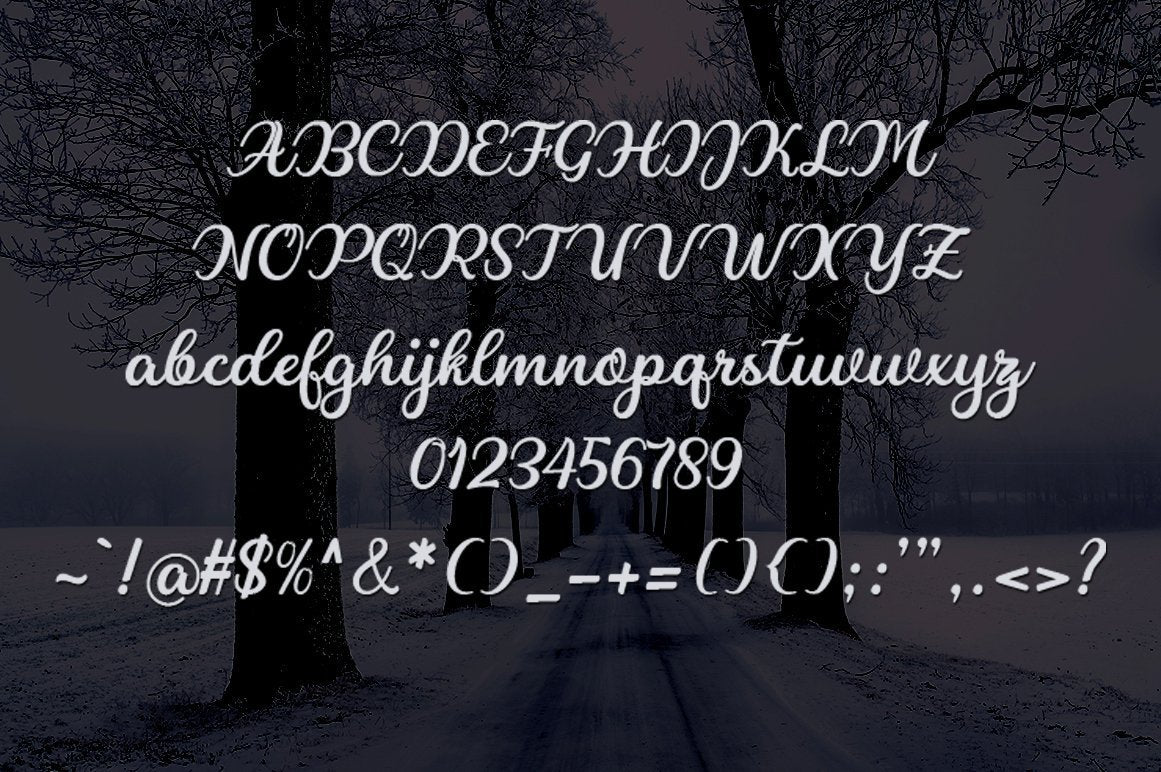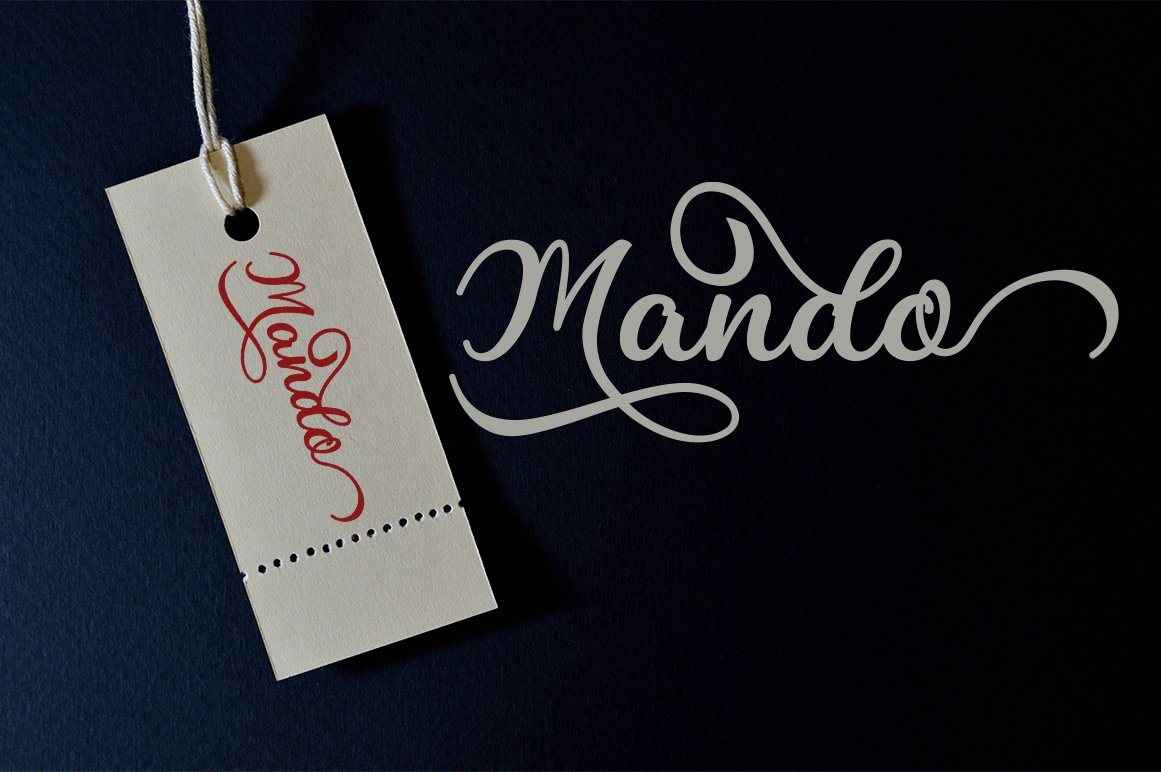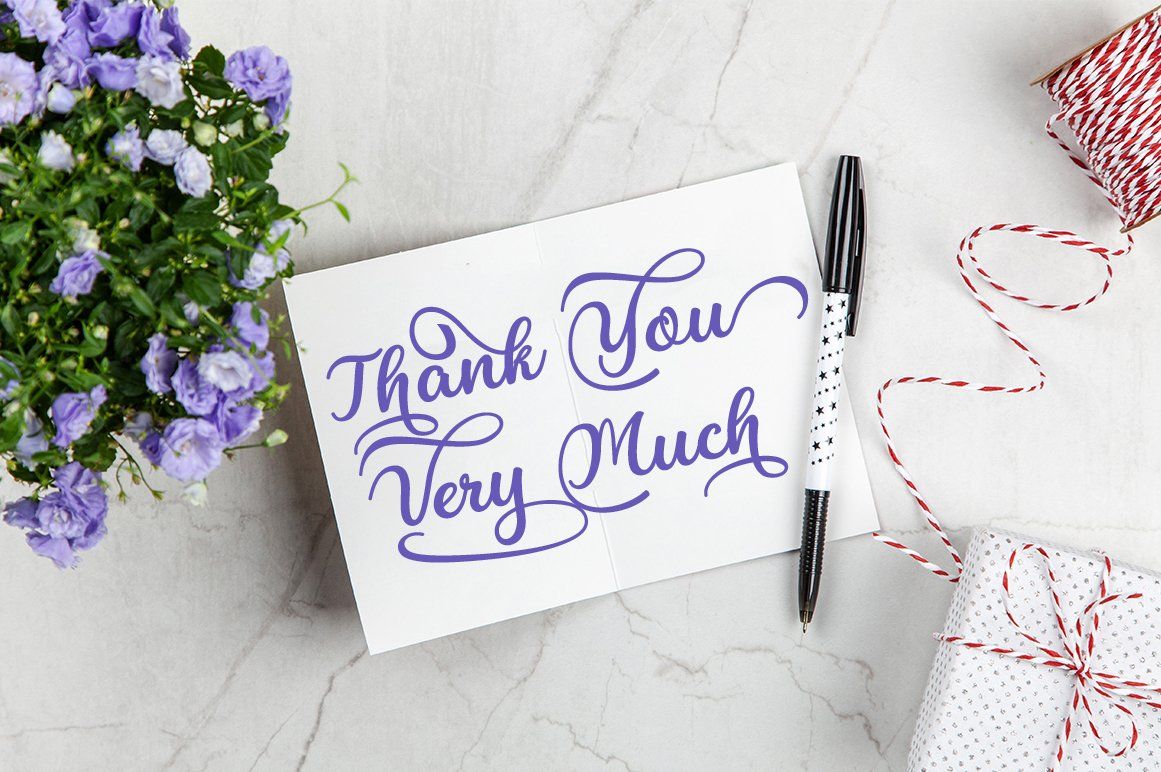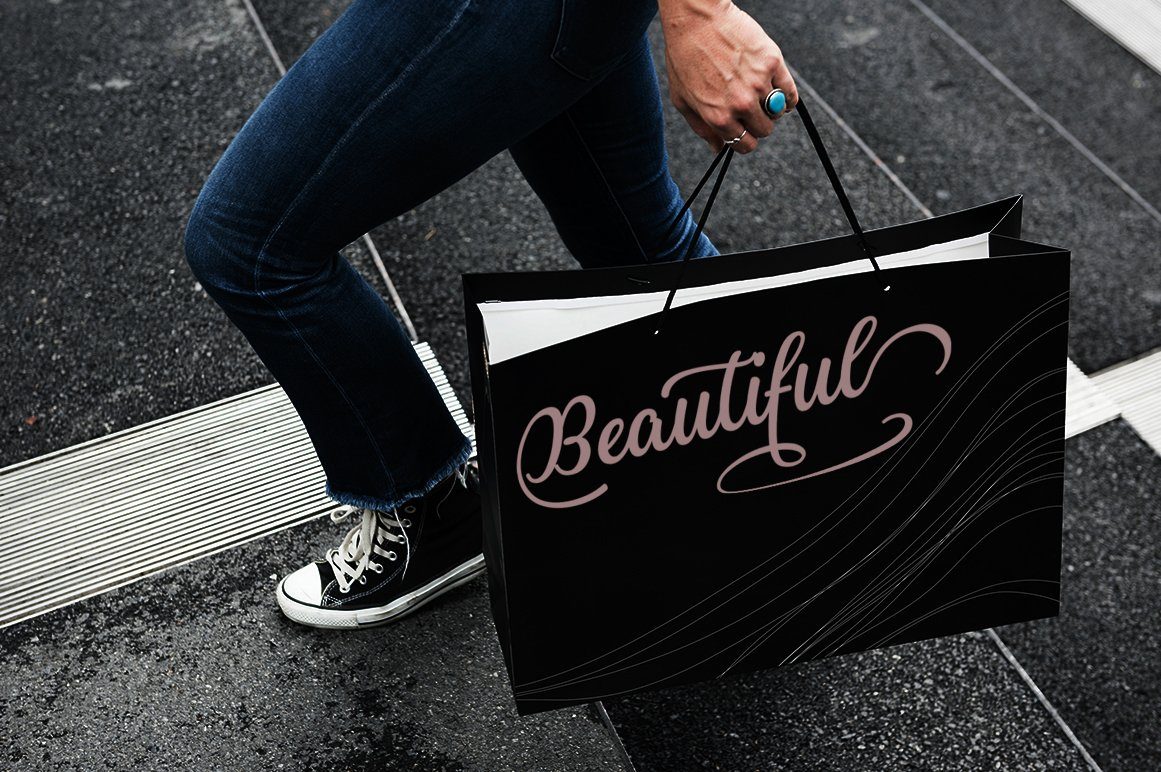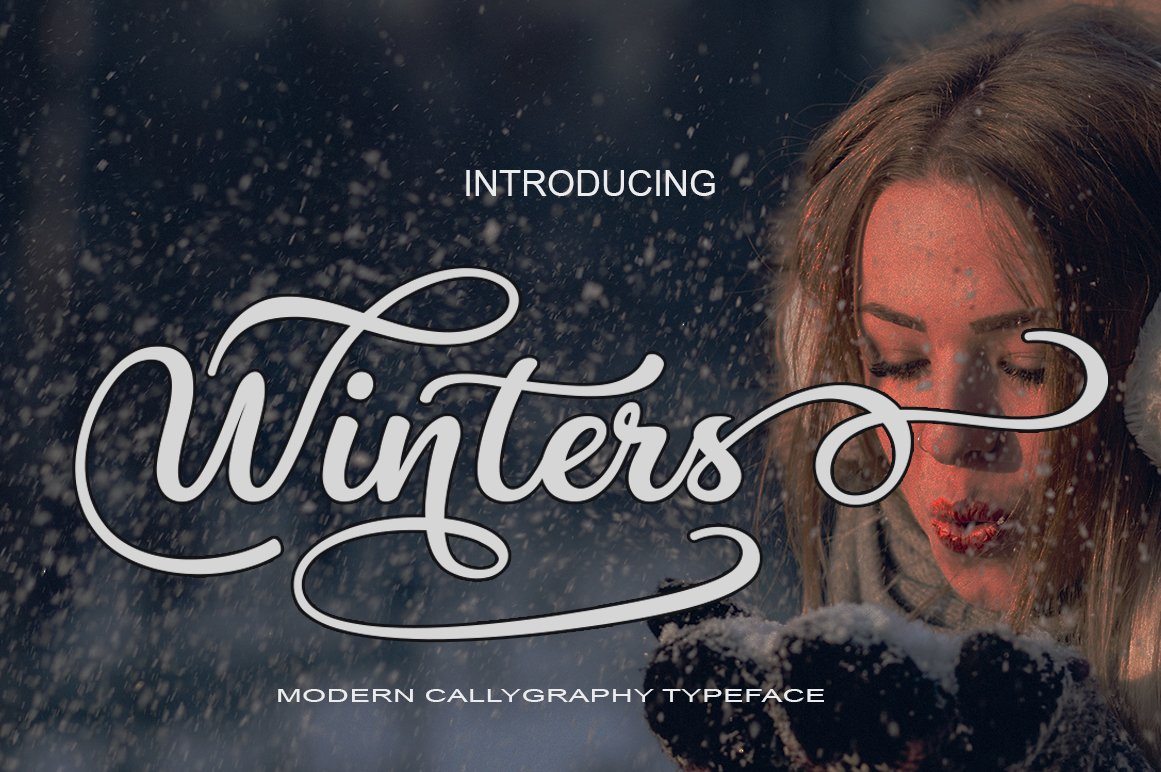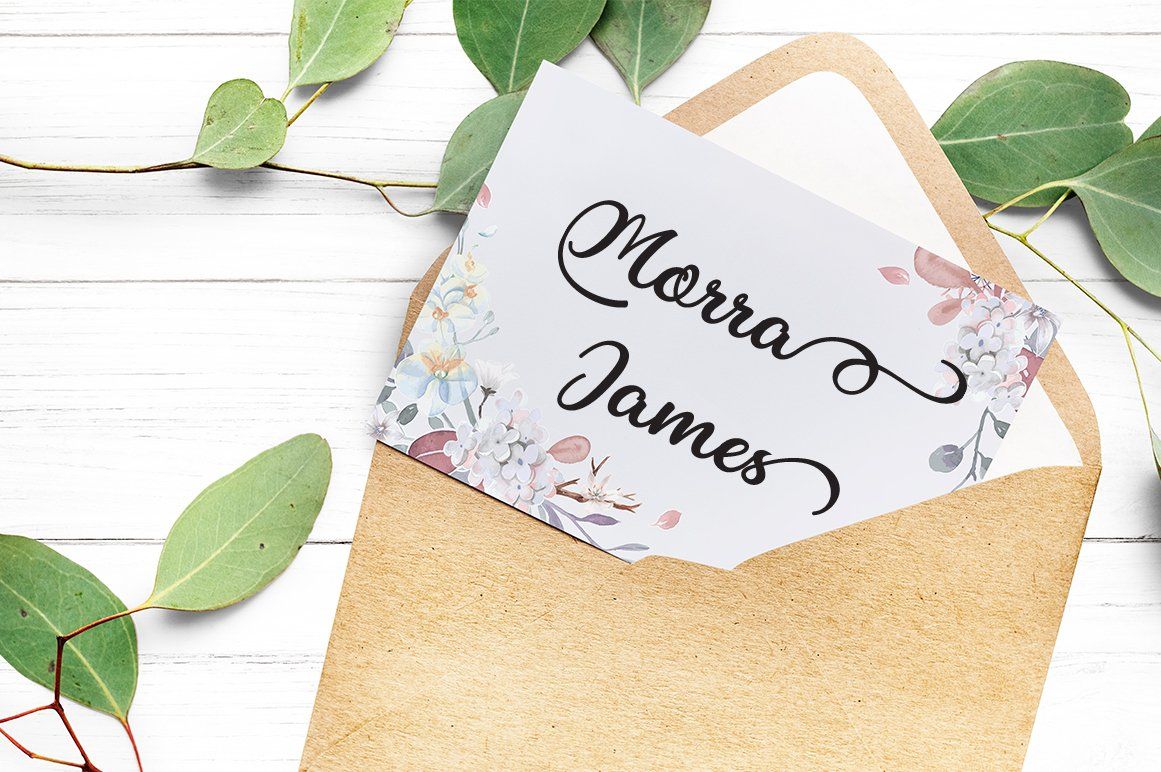
Winters
I Want To Introduce New Fonts Winters Script New fresh & modern style with handmade calligraphy, decorative characters and dancing lineage! So wonderful are invitations like greeting cards, branding material, business cards, quotes, posters, and more !! Winters Script The comes with 518 glyphs. Alternate characters are divided into several Open Type features such as Swash, Stylistic Sets, Stylistic Alternate, Contextual Alternate. Open Type features are accessible by using Open Type savvy programs such as Adobe Illustrator, Adobe InDesign, Adobe Photoshop Corel Draw X versions, and Microsoft Word. And this font has code PUA unicode (font with special code). So that all alternative characters can be easily accessed by craftsmen or designers. Winters Script Uppercase & lowercase International signature & symbol Punctuation Support & PUA number Unicode Style Style Alternative Style Style Range 1-13 Contextual Character Variations. ZIP files include the following: Winters.OTF Winters.TTF If you do not have programs that support OpenType features like Adobe Illustrator and CorelDraw X Versions, you can access all alternative flying machines using Font Book (Mac) or Character Map (Windows). Winters Script New fresh & modern style with handmade calligraphy, decorative characters and dancing lineage! So wonderful are invitations like greeting cards, branding material, business cards, quotes, posters, and more !! Winters Script The comes with 518 glyphs. Alternate characters are divided into several Open Type features such as Swash, Stylistic Sets, Stylistic Alternate, Contextual Alternate. Open Type features are accessible by using Open Type savvy programs such as Adobe Illustrator, Adobe InDesign, Adobe Photoshop Corel Draw X versions, and Microsoft Word. And this font has code PUA unicode (font with special code). So that all alternative characters can be easily accessed by craftsmen or designers. If you do not have programs that support OpenType features like Adobe Illustrator and CorelDraw X Versions, you can access all alternative flying machines using Font Book (Mac) or Character Map (Windows).